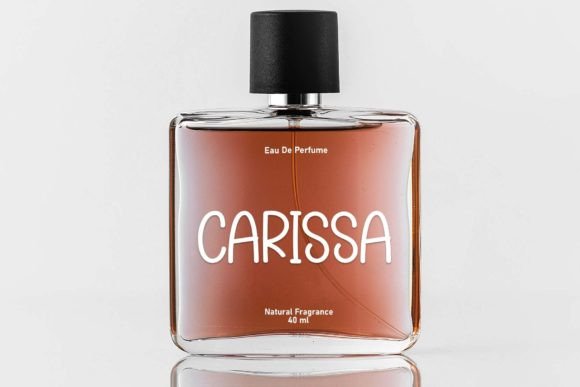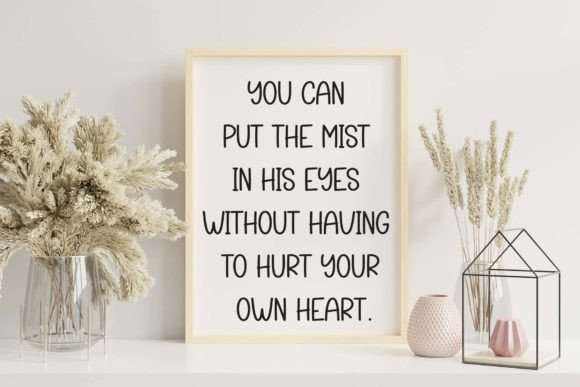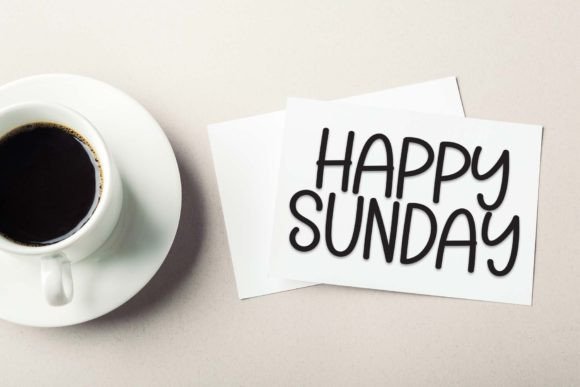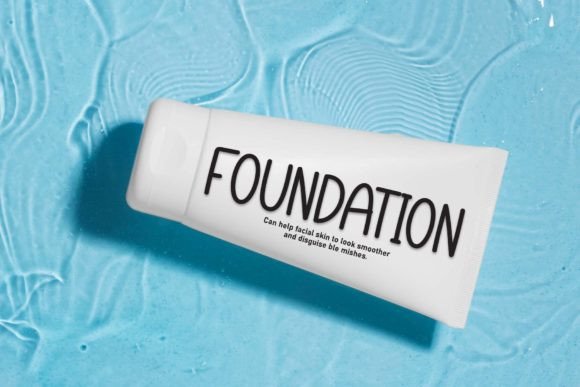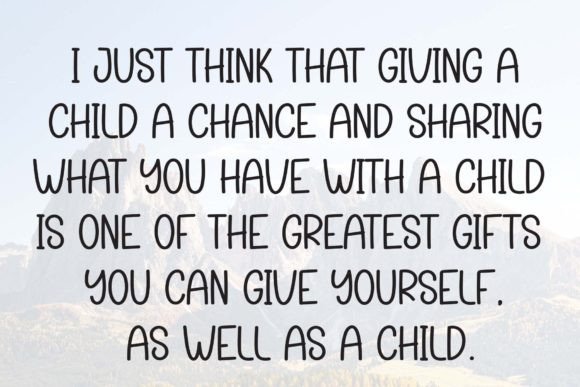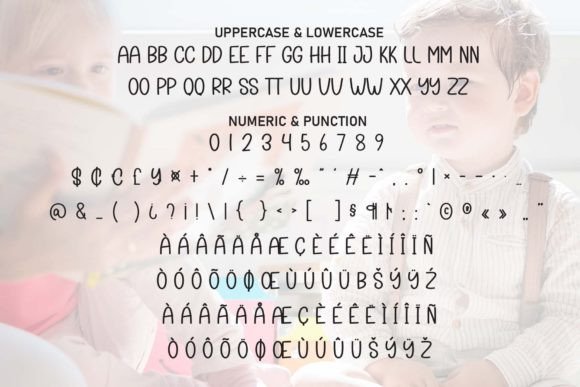
Discovering the Perfect Typeface for Your Design
As a designer, have you ever found yourself scrolling through font libraries, trying to find the perfect typeface to match your creative vision? Maybe you’ve stumbled upon a font that immediately resonated with you, or perhaps you’ve spent hours tweaking and adjusting until you finally found the perfect fit. Either way, the search for the ideal font can be a thrilling, albeit sometimes frustrating, experience.
Enter the Baby School Font, a clean and approachable sans-serif font that’s perfect for user interfaces, informative signage, and modern branding. With its friendly character and clean lines, this font is sure to make your message stand clear and approachable, whether for digital or print.
Baby School Font Key Features
- Font Family: Baby School Font is a unique, hand-drawn font designed specifically for educational purposes, particularly for young children.
- Character Set: Includes a wide range of characters, including uppercase and lowercase letters, numbers, punctuation marks, and special symbols, making it suitable for various educational content.
- Unique Characteristics: Features a playful, child-friendly design with rounded edges, making it perfect for educational materials, children’s books, and other educational content.
Baby School Font Review
I recently had the chance to work with the Baby School Font, and I have to say, it’s a unique addition to any design project. ✨ One of the things that stands out is the playful, hand-drawn feel of the font. It’s perfect for projects that need a lighthearted, childlike touch.
Another aspect I appreciate is the extensive character set, which includes a wide range of symbols and punctuation marks. This makes it easy to use in a variety of contexts, from children’s books to educational materials.
- Unique, hand-drawn feel
- Extensive character set
- Perfect for lighthearted, childlike projects
- ⚠️ The font may be too playful for more formal or professional projects
- ⚠️ Some characters may be difficult to read at small font sizes
Overall, I think the Baby School Font is a great choice for projects that require a whimsical touch. While it may not be suitable for every design project, it’s a valuable addition to any designer’s toolkit.
Some tips for getting the most out of Baby School Font include using it for children’s educational materials, baby product branding, and nursery decorations. You can also use it to add a playful touch to your designs. To ensure the font looks its best, use it in conjunction with bright and pastel colors.